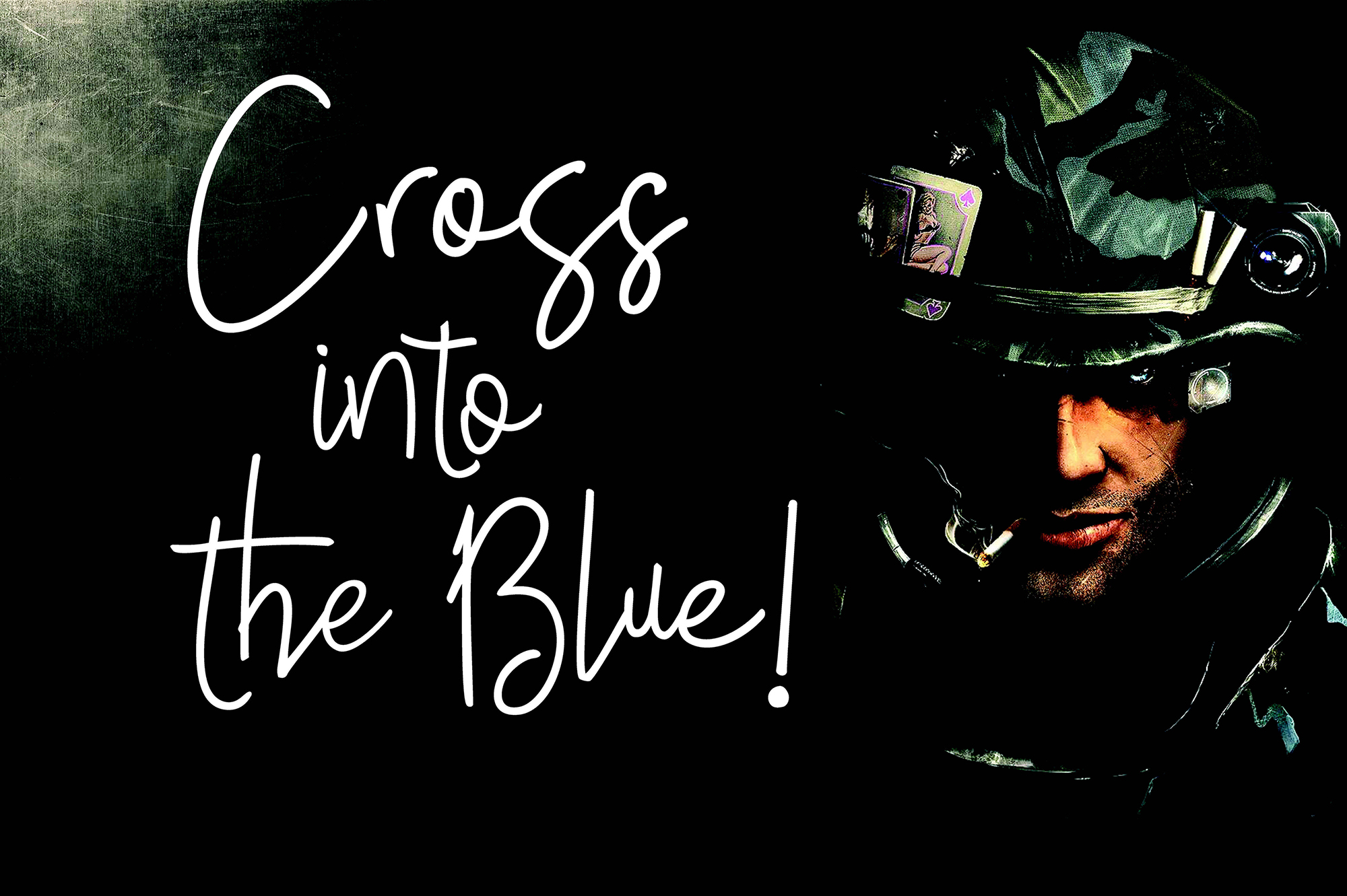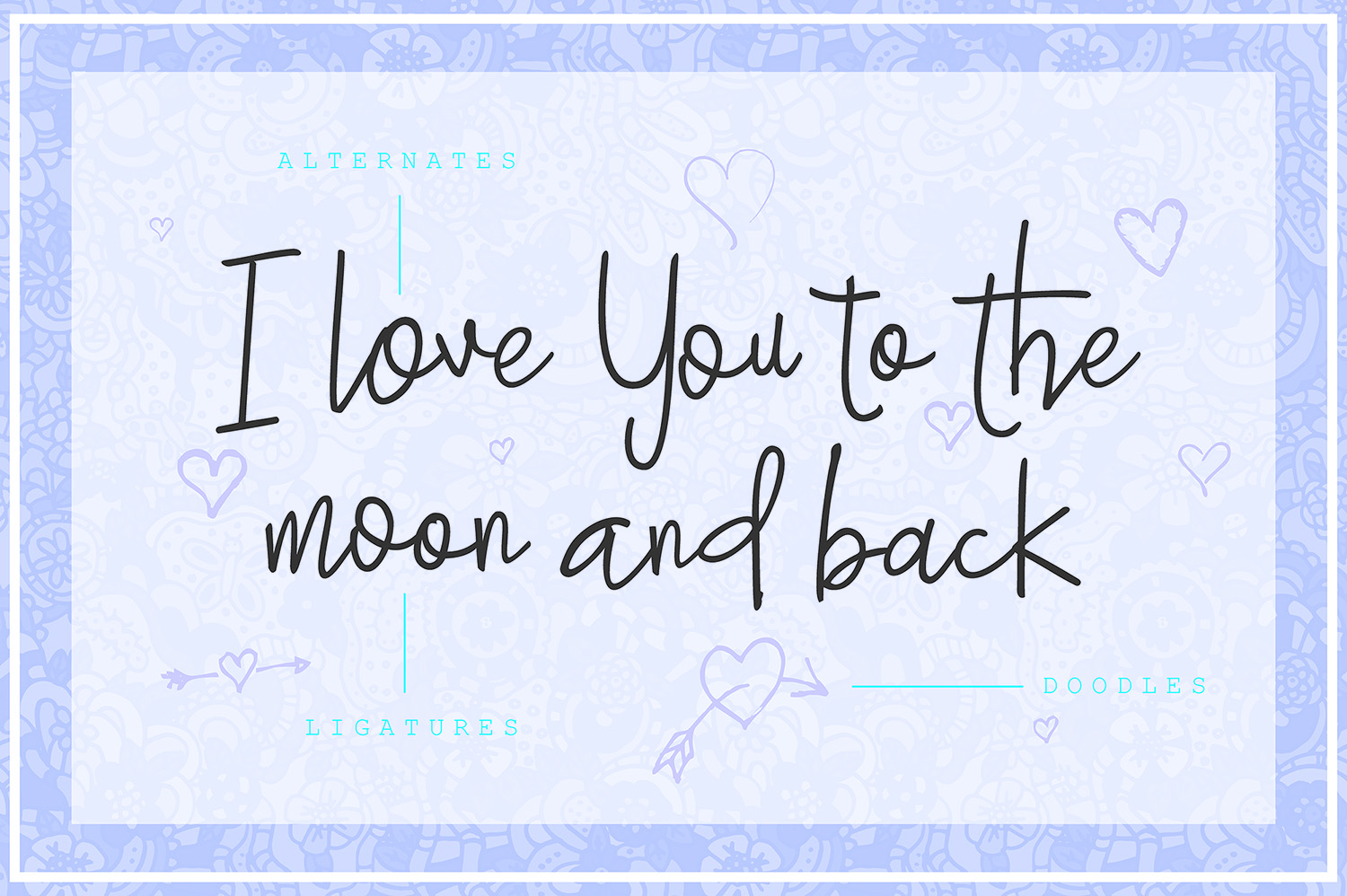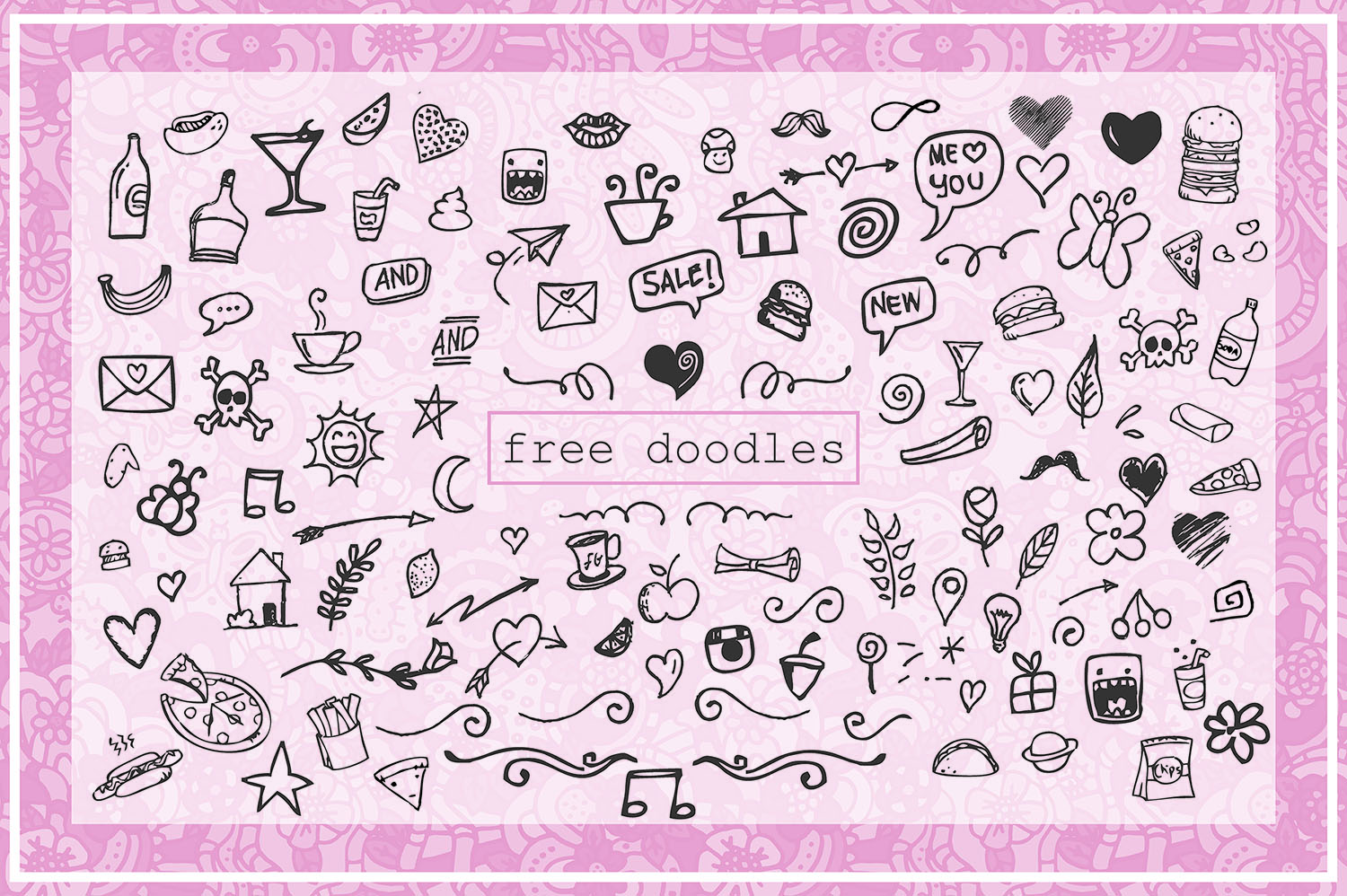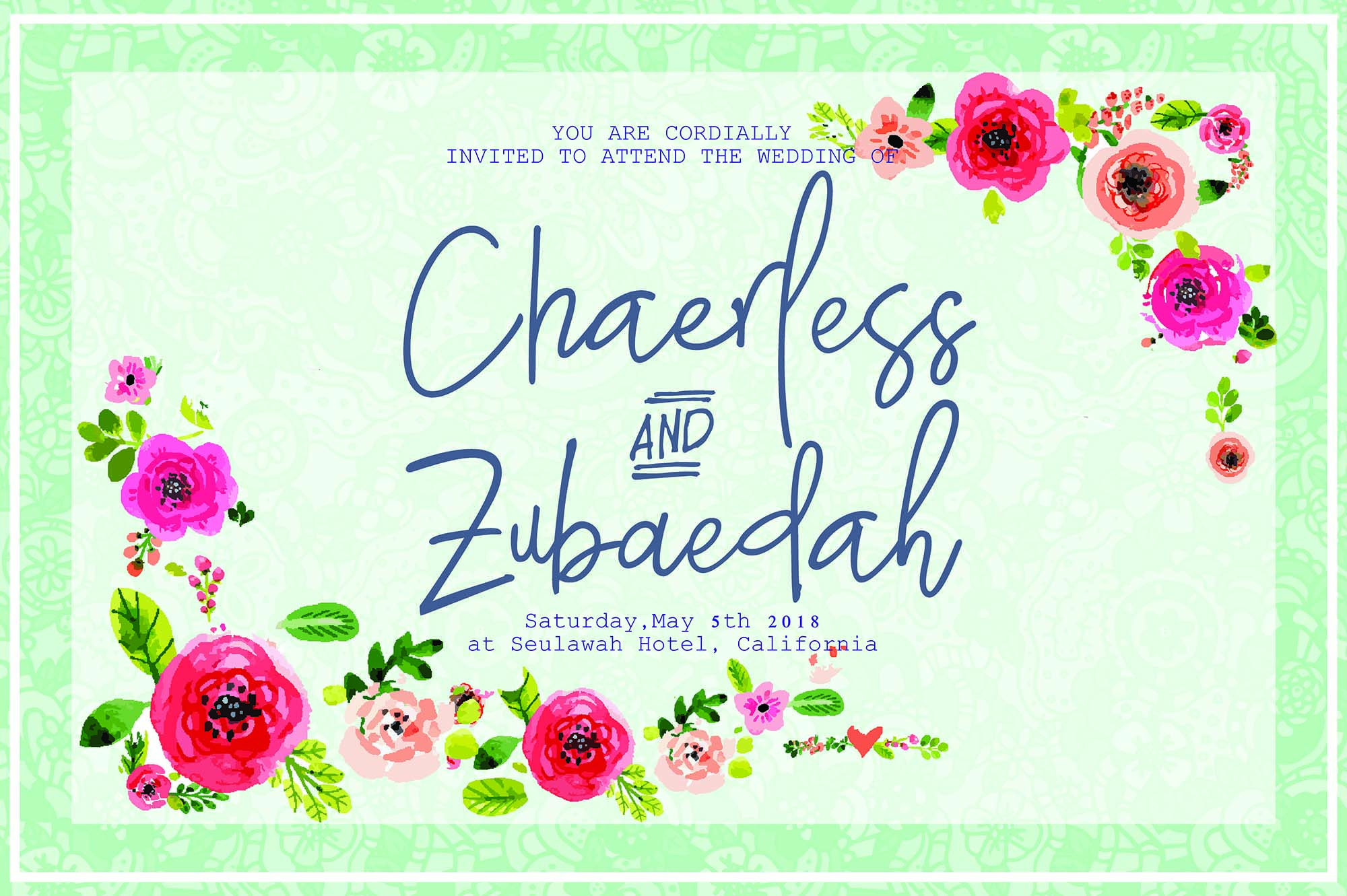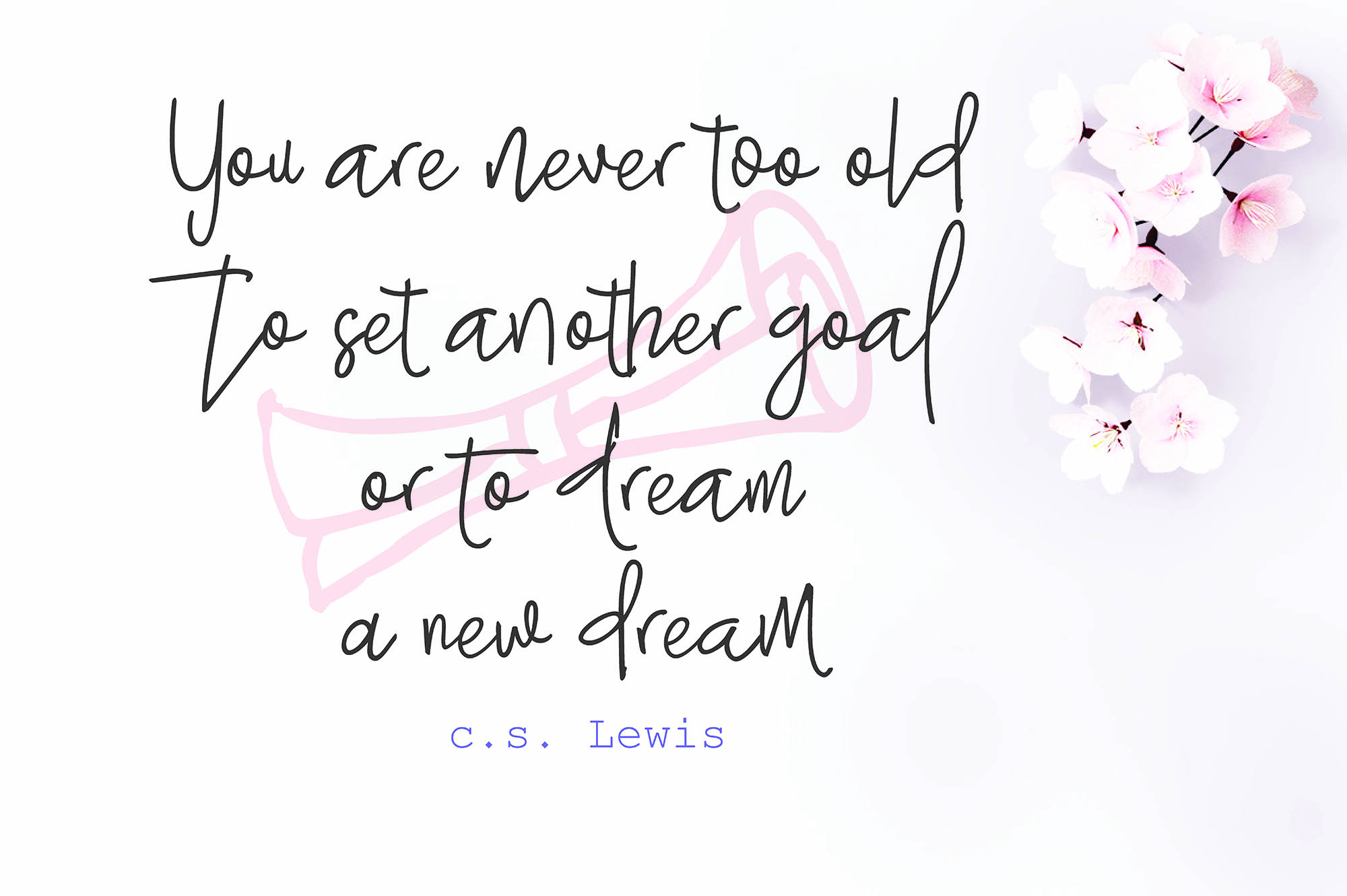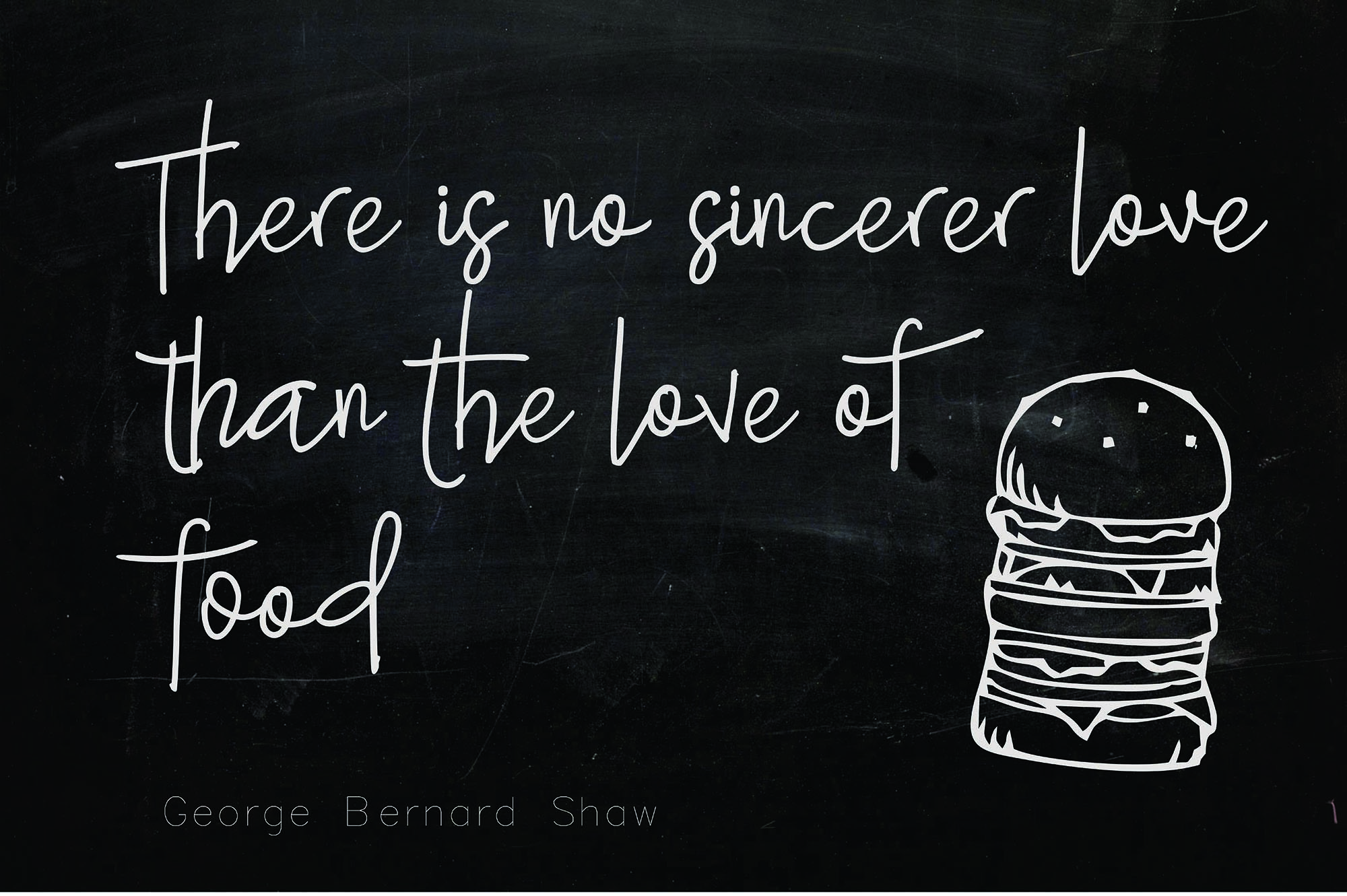
Introducing Black Hawk Font: Elevate Your Designs with a Touch of Elegance
In the world of typography, a font can make all the difference in the aesthetic and feel of your design. For those seeking a modern yet elegant touch, the Black Hawk Font is an exceptional choice. This amazing, new handwritten font is specifically designed to bring an authentic, hand-lettered feel to your projects, making it perfect for designers and crafters looking to add a personal touch to their work.
The Essence of Black Hawk Font
Black Hawk is not just another font; it’s a signature style that blends modernity with elegance. Its unique, handwritten characteristics make it stand out in the realm of digital typography. Whether you’re working on a branding project, crafting a bespoke invitation, or designing a logo, Black Hawk offers the versatility and sophistication you need to elevate your design.
Key Features of Black Hawk Font
- Handwritten Authenticity: Black Hawk captures the essence of hand-lettering, providing a personal and authentic feel to your designs.
- Modern and Elegant: With its clean lines and sophisticated style, Black Hawk is perfect for projects that demand a contemporary and refined look.
- Versatility: This font is incredibly versatile, suitable for a wide range of projects from digital content to print materials.
- Easy to Use: Black Hawk is designed to be user-friendly, making it easy to incorporate into your design workflow.
Applications of Black Hawk Font
The applications of Black Hawk Font are vast and varied. Designers can use it to:
- Create stunning logos and branding materials that stand out.
- Design beautiful invitations and event materials with a personal touch.
- Develop digital content, such as blog headers, social media graphics, and website titles, that capture attention.
- Produce print materials like brochures, posters, and flyers with a unique and elegant look.
Why Choose Black Hawk Font?
In a market flooded with fonts, Black Hawk stands out for several reasons:
- Uniqueness: It offers a fresh, unique style that can help your designs differentiate from the crowd.
- Quality: Crafted with attention to detail, Black Hawk ensures high-quality typography for your projects.
Tips for Using Black Hawk Font Effectively
To get the most out of Black Hawk Font, consider the following tips:
- Pair it Wisely: Combine Black Hawk with complementary fonts to create visual interest and hierarchy in your designs.
- Experiment with Sizes: Play with different sizes to emphasize certain words or phrases and add dynamism to your text.
- Use it for Headlines: Black Hawk’s elegance and readability make it perfect for headlines and titles.
| Font Name | Black Hawk Font |
| Author | fargunstudio |
Black Hawk Font is a remarkable addition to any designer’s toolkit. Its blend of modernity, elegance, and authenticity makes it an ideal choice for a wide range of projects. Whether you’re a professional designer or a crafter, Black Hawk offers the potential to elevate your designs and make them truly memorable. Discover the difference that Black Hawk Font can make in your next project.